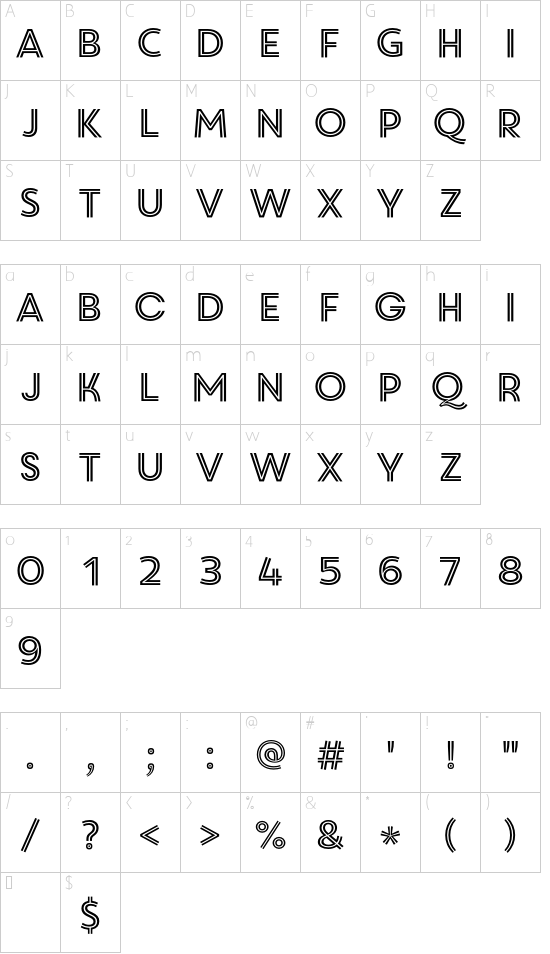
Core Circus Font
Core Circus Font - Core circus is a layered type family consisting of seven 3d effect layers, eight 2d effect layers and one shadow effect layer. Installable on pc, mac, linux, ios, and android platforms. Discover the free core circus font at free font download ! Core circus is a layered type family consisting of seven 3d effect layers, eight 2d effect layers and one shadow effect layer.